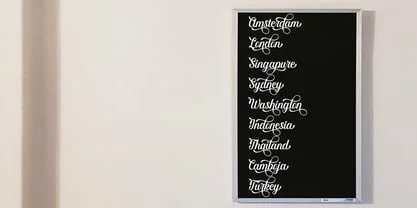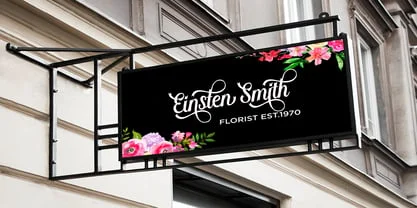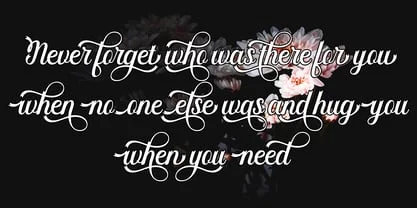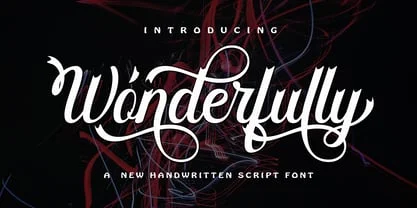
Wonderfully Script Font
When a design brief calls for both consistent type colour across continuous text and immediate visual impact, type choices matter — Wonderfully Script answers that brief. The typeface brings an elegant, calligraphic sensibility to a broad range of creative disciplines, with versatility across print and screen contexts that holds up whether the work is print-first or screen-first.
In practice, Wonderfully Script proves particularly effective for advertising campaigns, signage systems, logo design, perfume labels, fashion editorials. Designers reaching for it find that the type decisions feel resolved rather than laboured — a useful quality when client timelines are tight.
The range of applications extends to event signage, luxury stationery, bridal materials, web design. That breadth is deliberate: the proportions and spacing were stress-tested across a wide range of mock briefs before the typeface was finalised.
Freelance designers across print and digital disciplines find Wonderfully Script a reliable choice for projects that demand both personality and restraint. The design avoids the self-conscious quirkiness that dates quickly, settling instead for considered distinctiveness that holds up over time.